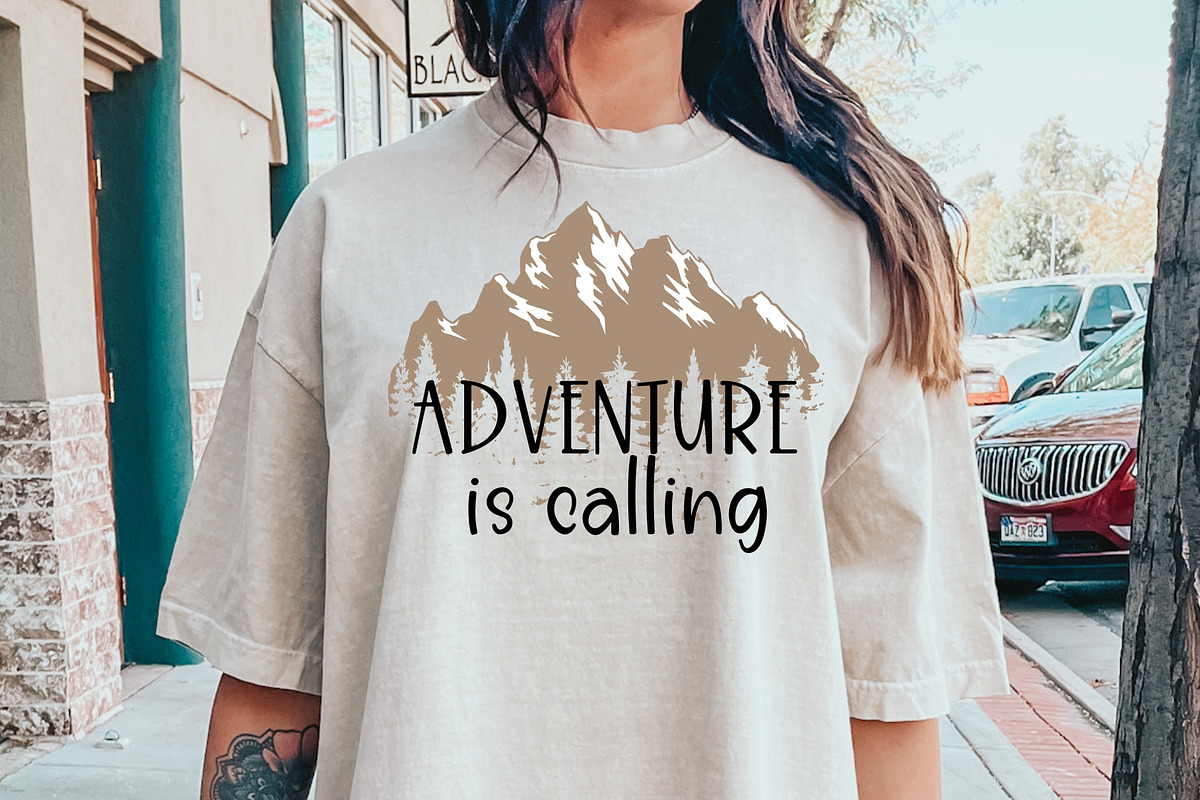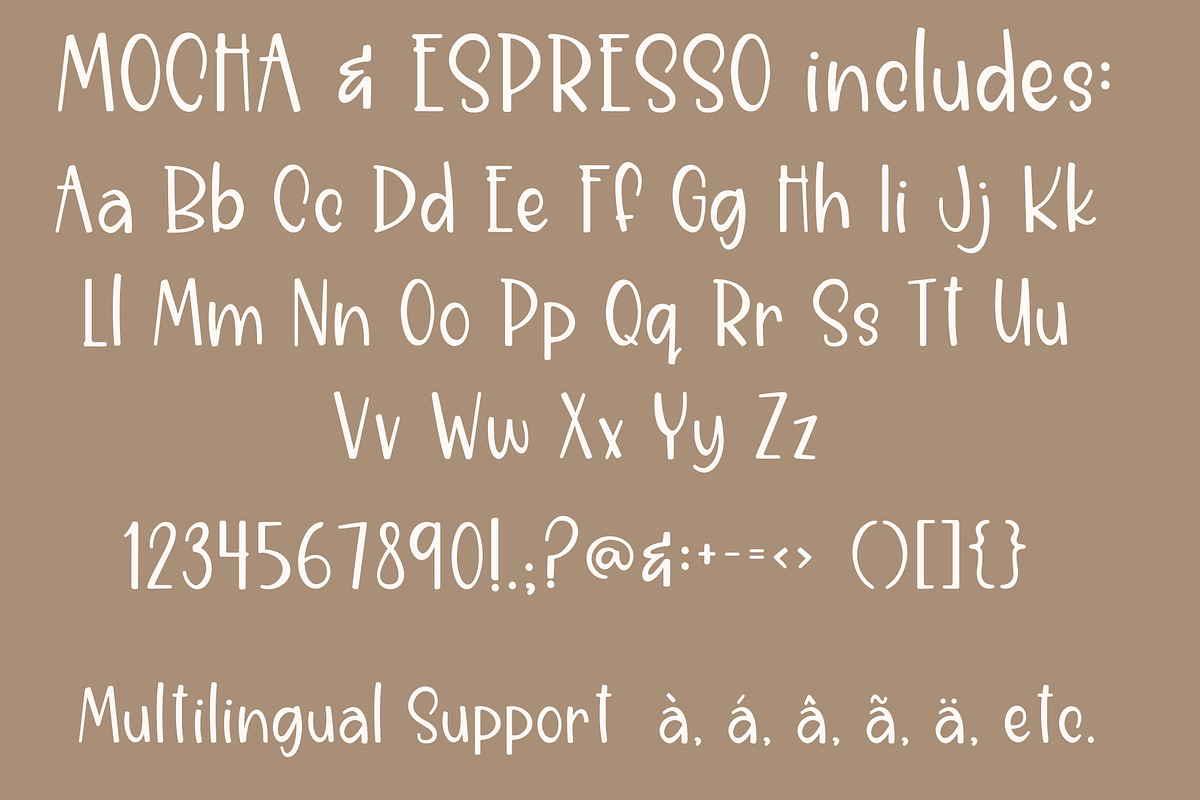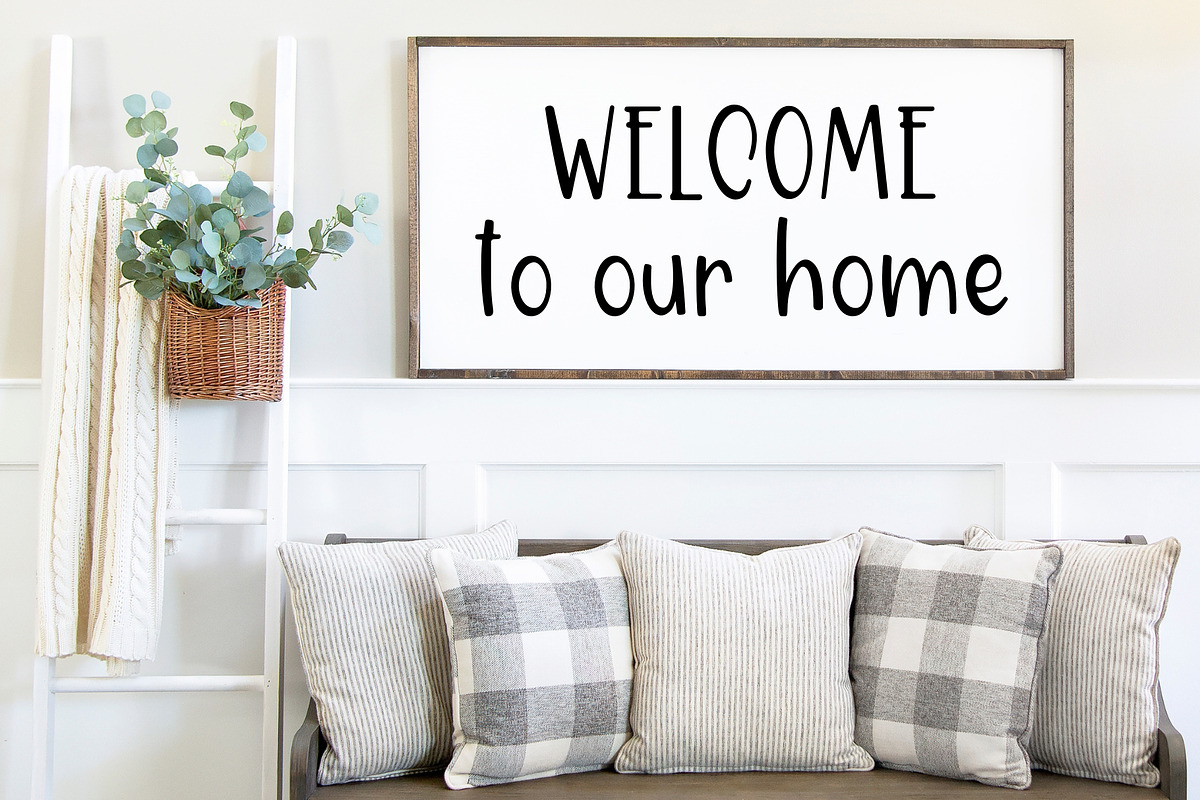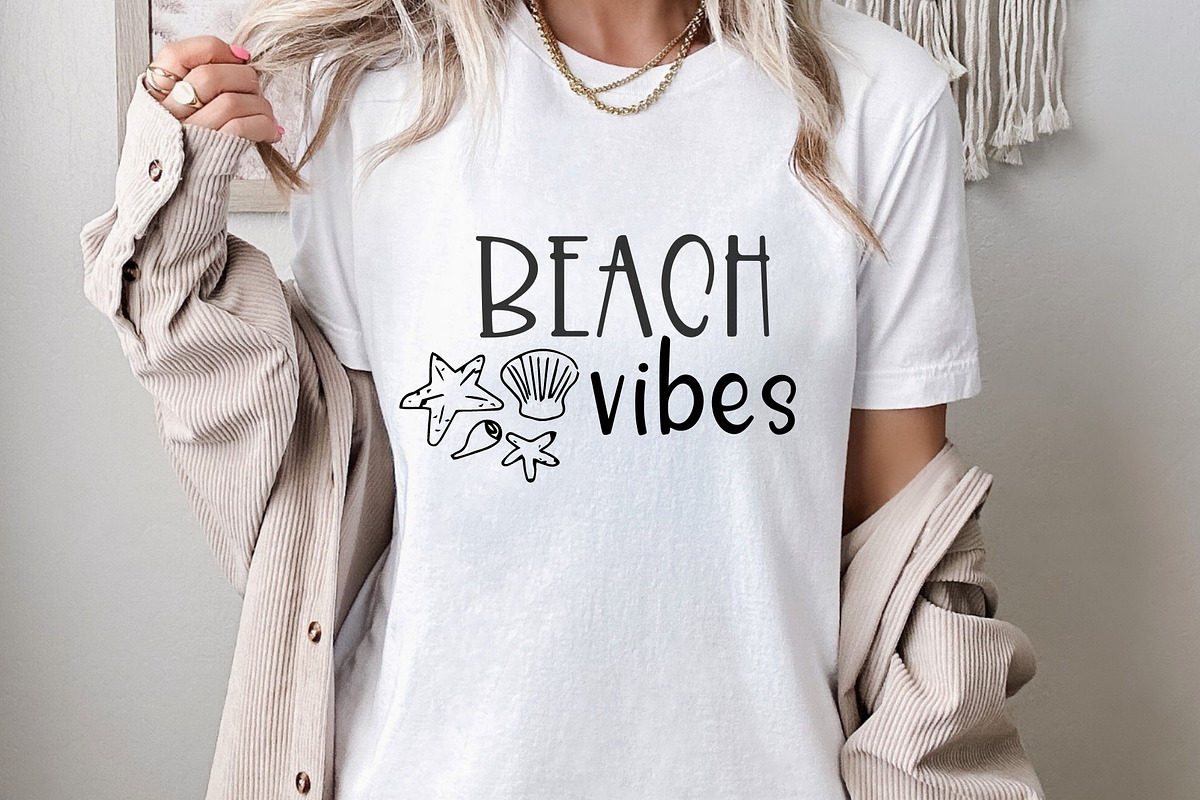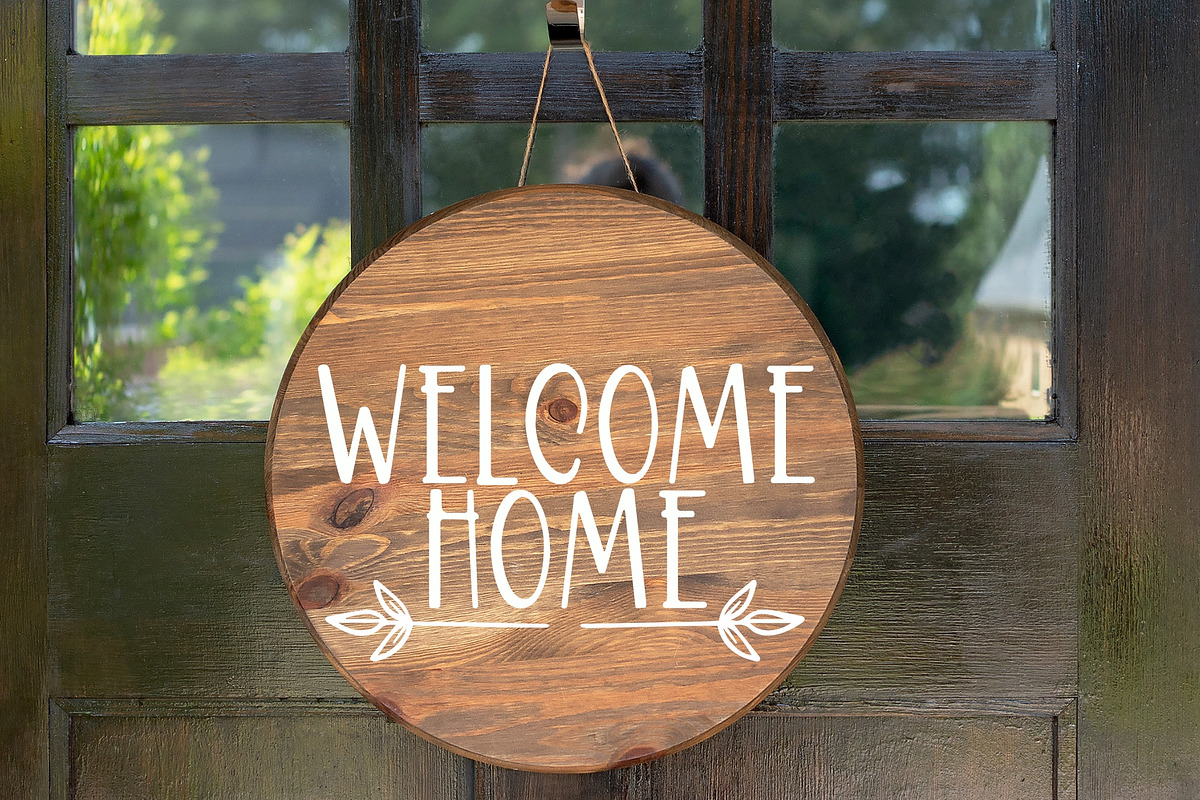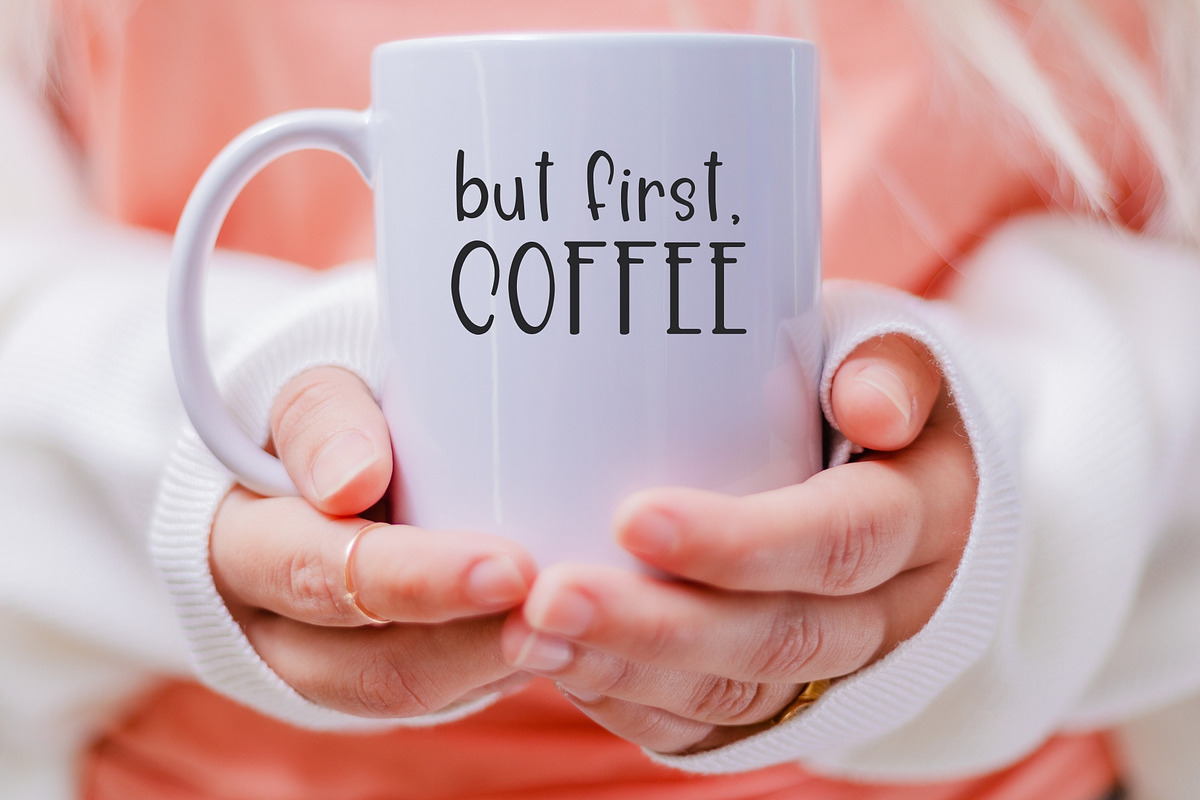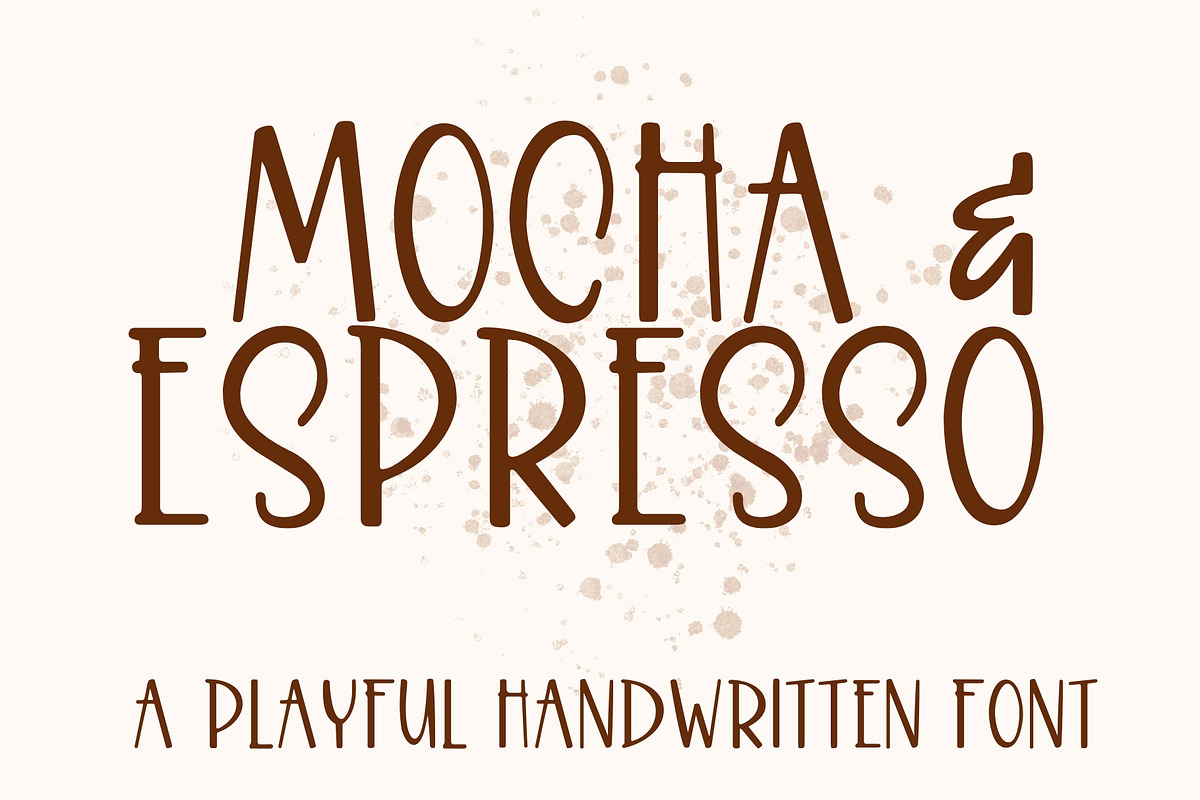
Mocha & Espresso, Cute Handwriting
Introducing Mocha & Espresso handwritten font for cricut - a charming and cute addition to your creative projects! This energetic handwriting font is perfect for all your Cricut designs, making it a must-have for craft enthusiasts. Our handwriting font is compatible with SVGs, Goodnotes, Procreate, and many other programs. With its playful and fun handwriting style, it adds a touch of whimsy and personality to any project. Whether you're crafting cards, scrapbooking, or designing SVG files, this font will bring your creations to life. Get ready to impress with our amazing Cricut font collection and unlock endless possibilities for your artistic endeavors!